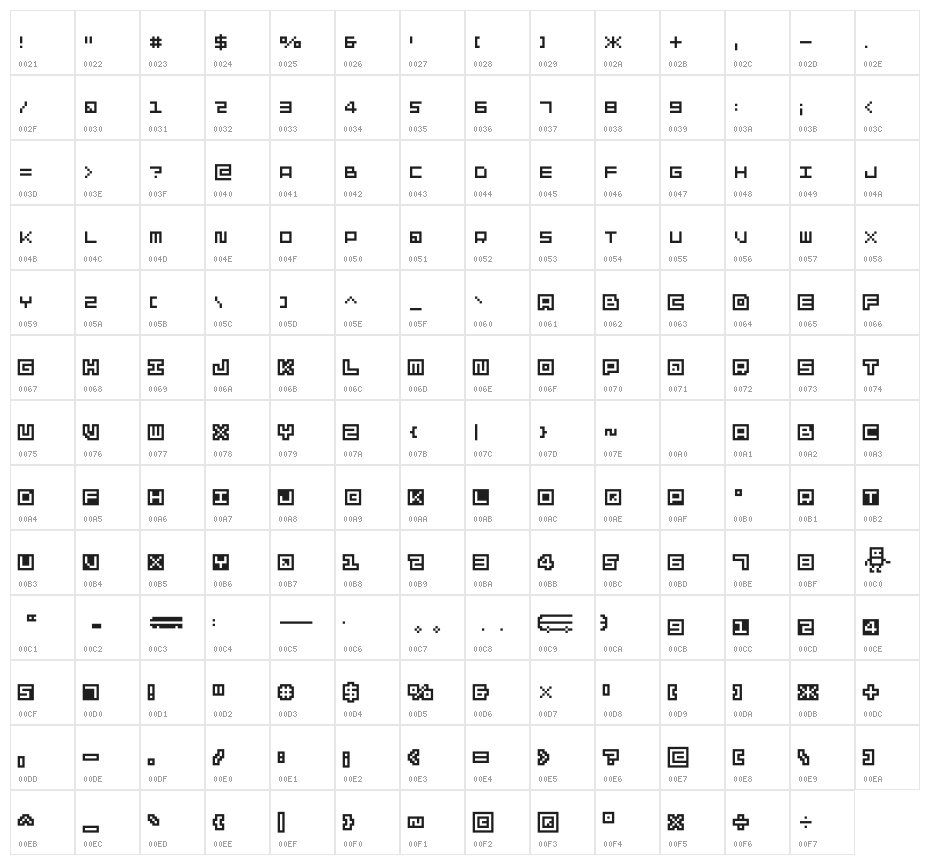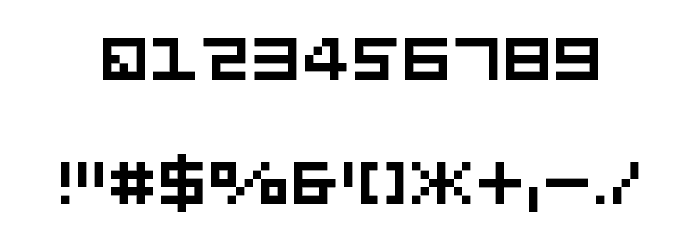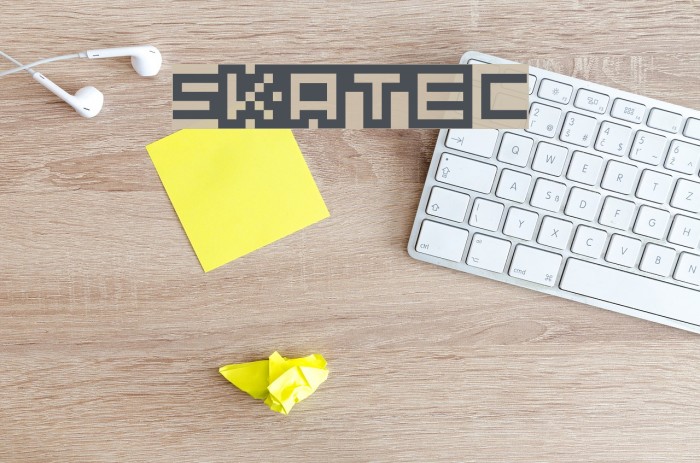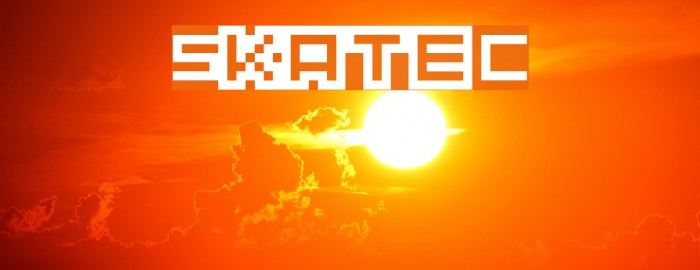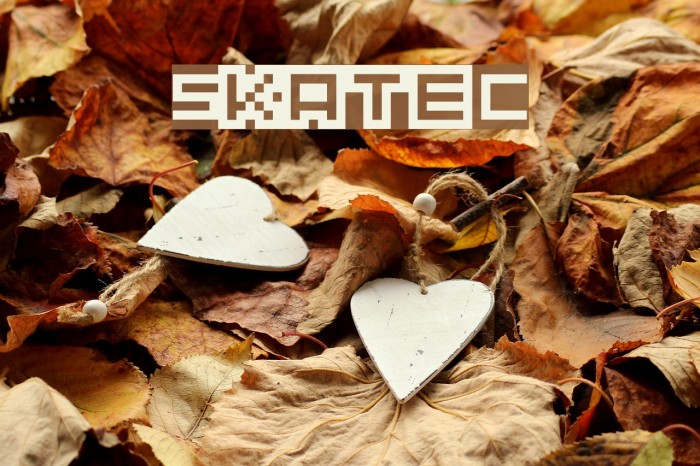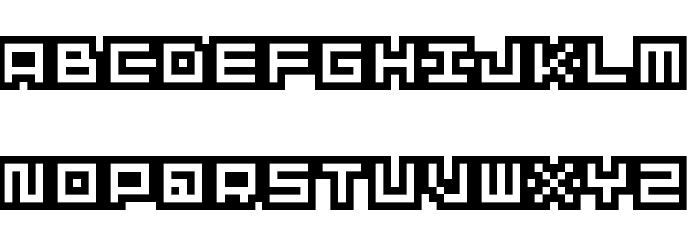
SkateC Font
SkateC Description
This font features a bold, pixelated design reminiscent of retro video games and digital displays. The characters are constructed with a blocky, grid-like structure, giving them a distinctly digital and geometric appearance. The uppercase and lowercase letters maintain a consistent height, contributing to a uniform look across the typeface. The numerals and special characters are designed with the same pixelated style, ensuring cohesion throughout. This font's unique aesthetic makes it ideal for projects that aim to evoke a sense of nostalgia or a digital theme.
| Proposed Projects | Ideal for video game graphics, digital-themed posters, retro-style branding, and tech-related designs. |